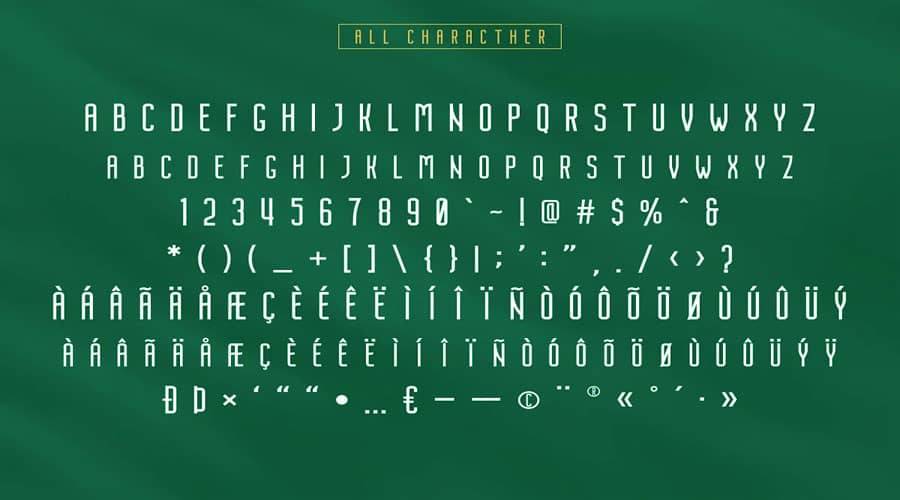
Nordin Condensed Sans Font
Nordin – Condensed Sans Serif is a graceful simplified sans serif font. On January 14, 2019, craft supply co designed and published the Font.
Nordin – Condensed Sans Serif is a robust typeface with such a sans serif style. By merging a range of styles, it is rooted in the compact solid Font.
Nordin – Condensed Sans Serif too is appropriate for art, modern envelope logos or book design, occurring styles such as hand drawn design or canvases design theme, artisan design, each and every DIY project, book cover, wedding font, classic rock design, and any other purpose to create our art/design project look great and fashionable. This DEMO font does not include all of its Unicode glyphs and is intended for PERSONAL USE ONLY. The Font is already available in the creative market all time; go and check.
Nordin Condensed Sans Font should be used for logos, greeting cards, quotes, banners, brand identity, name cards, stationery, design titles, blog headers, art quotes, and lettering.